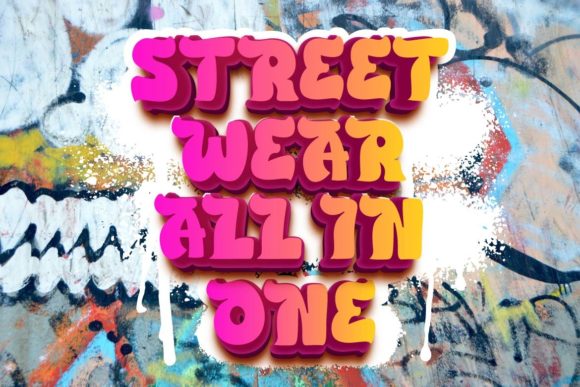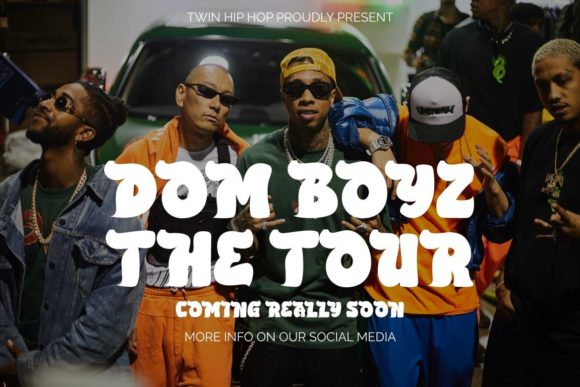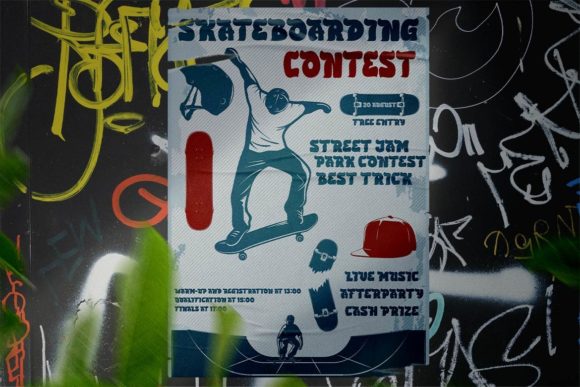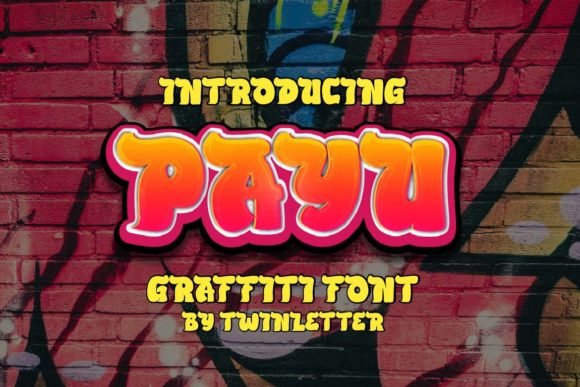
Introduction to Payu Font
Payu is a graffiti-styled display font that has a bold, street art vibe.
This font is suitable for designs such as t-shirts, sportswear, logos, advertisements, clothing, and more .
Key Features of Payu Font
Why Choose Payu Font?